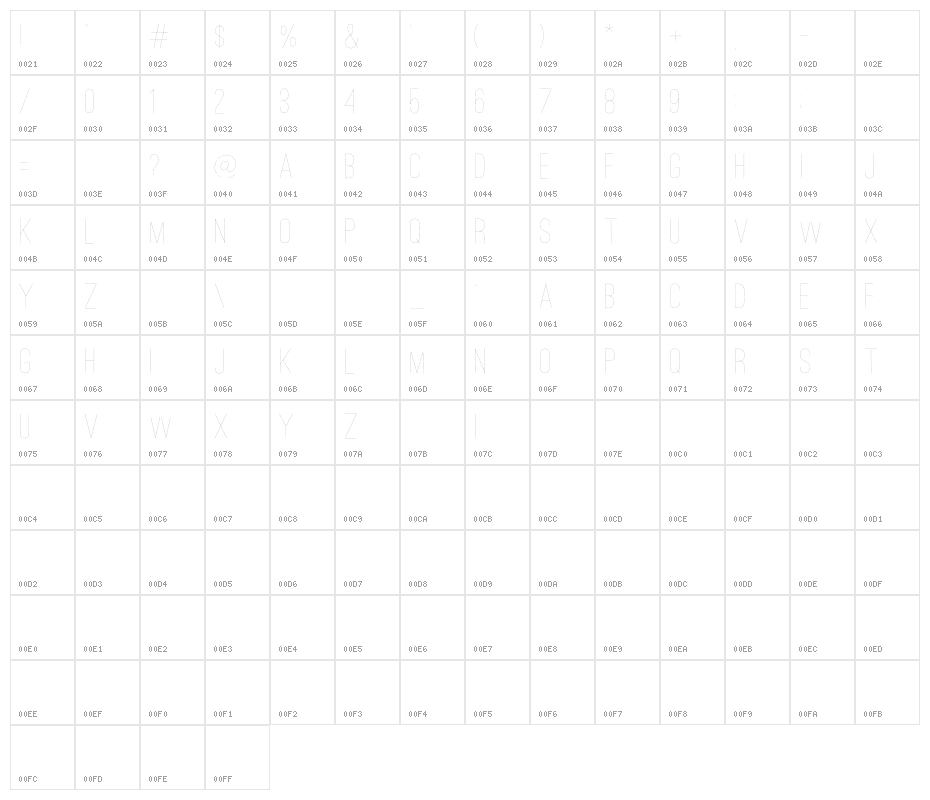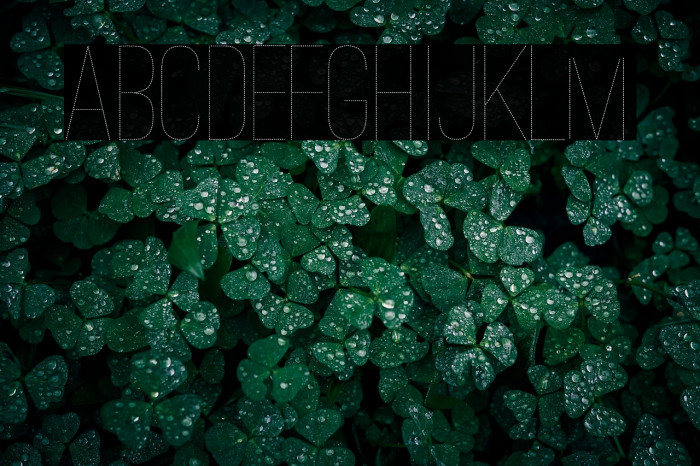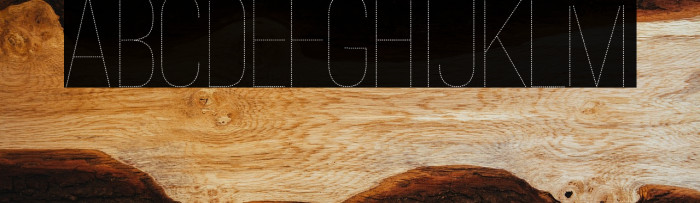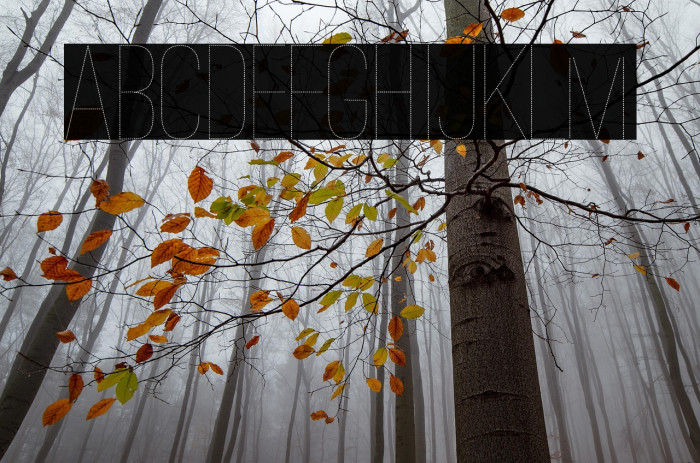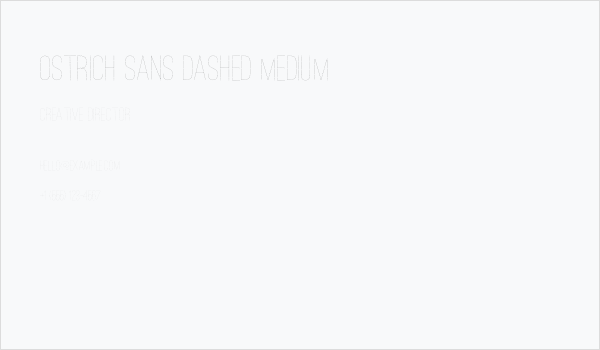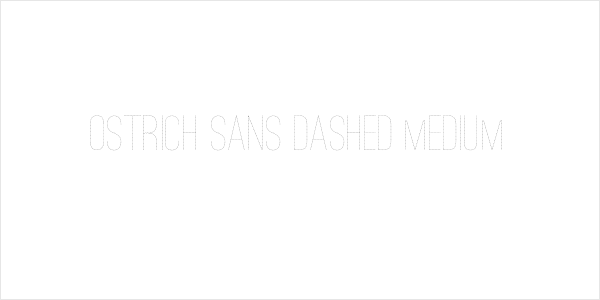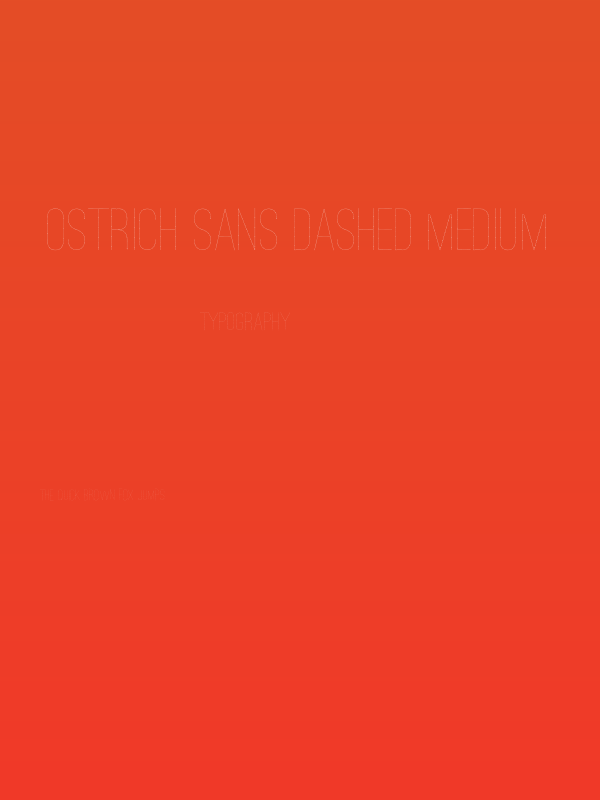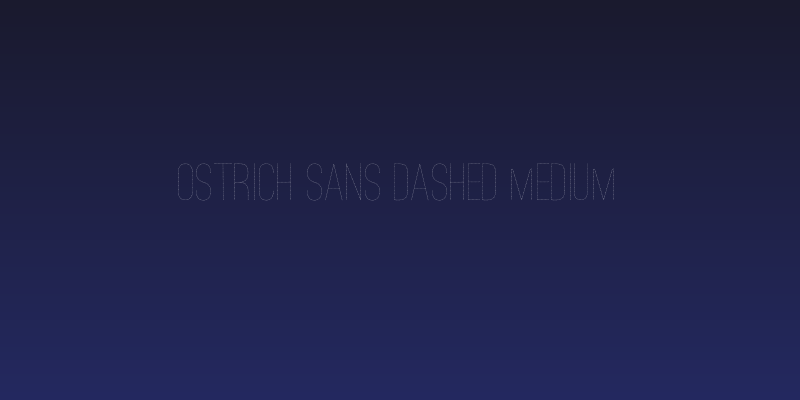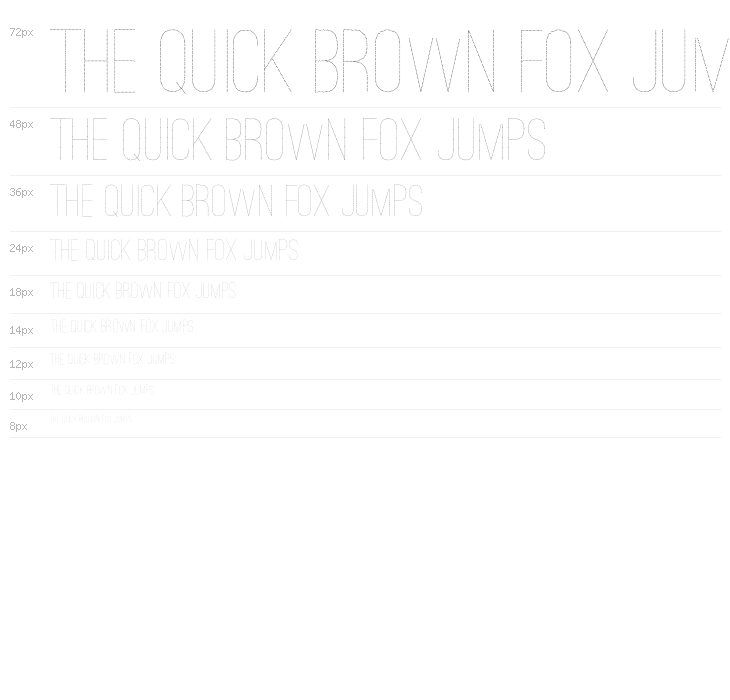
Ostrich Sans Dashed Medium Font
Ostrich Sans Dashed Medium Description
This font features a unique dashed line style, giving it a distinct and modern appearance. The characters are constructed with evenly spaced dots, creating a sense of lightness and airiness. The uppercase and lowercase letters maintain a consistent height and width, contributing to a uniform look. The numerals and special characters follow the same dashed pattern, ensuring cohesion across all glyphs. This font's minimalist design makes it suitable for contemporary projects where a subtle yet striking typeface is desired.
| Proposed Projects | Ideal for digital designs, tech-themed projects, modern branding, and creative posters. |